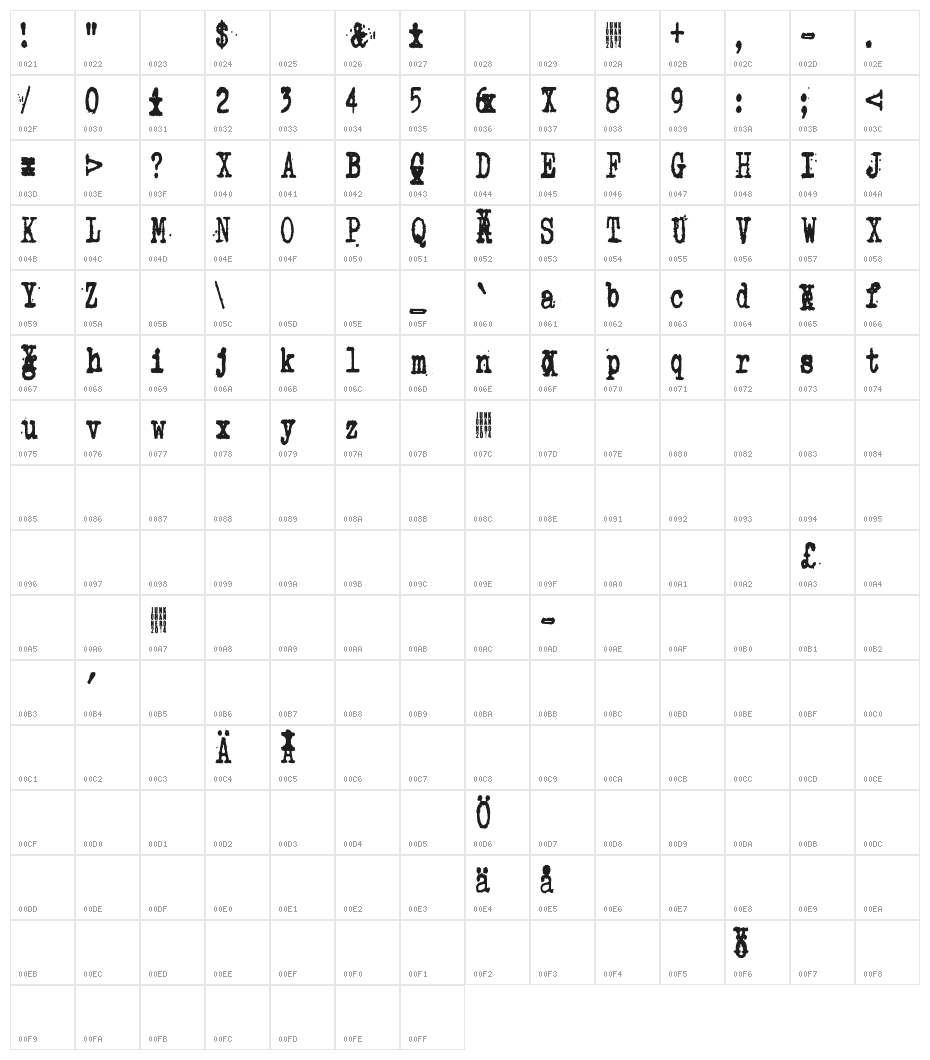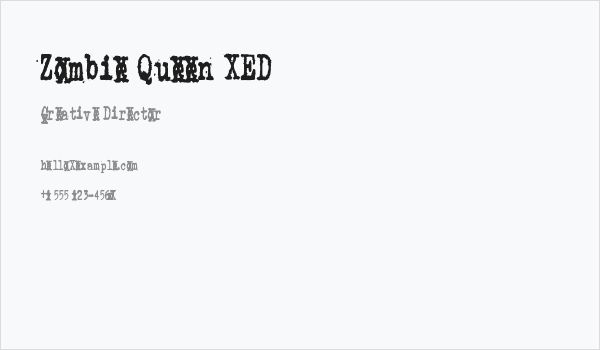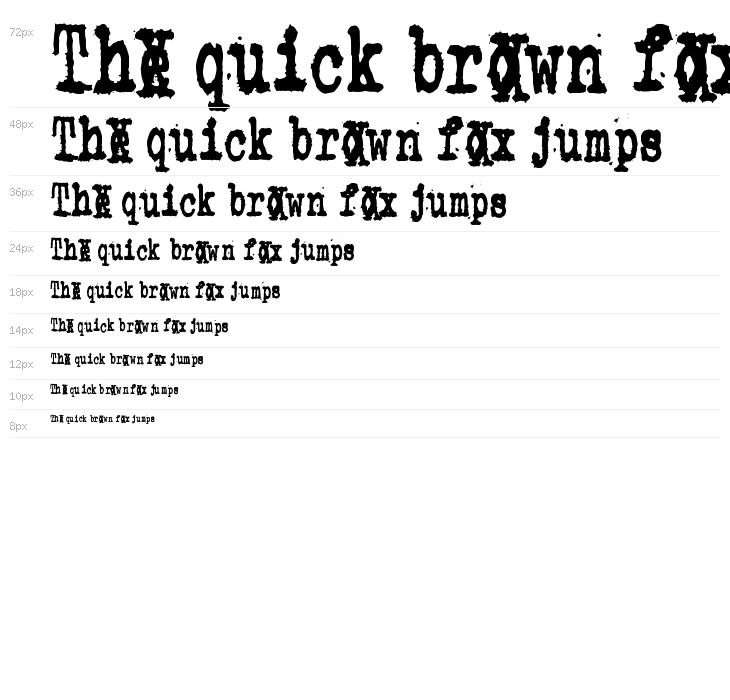
Zombie Queen XED Font
Zombie Queen XED Description
This font features a distressed, grunge style with a rough, textured appearance. The characters appear as if they have been stamped or printed with ink that has bled, creating an uneven and worn look. The uppercase and lowercase letters maintain a consistent style, with irregular edges and a bold presence. Numbers and special characters follow the same aesthetic, enhancing the overall rugged and edgy feel. This font is ideal for projects that require a raw, vintage, or rebellious vibe.
| Overall Style | Vintage, Grunge |
| Use Case | Headlines, Posters, Logos |
| Proposed Projects | Perfect for album covers, posters, horror-themed designs, or any project needing a gritty, vintage look. |